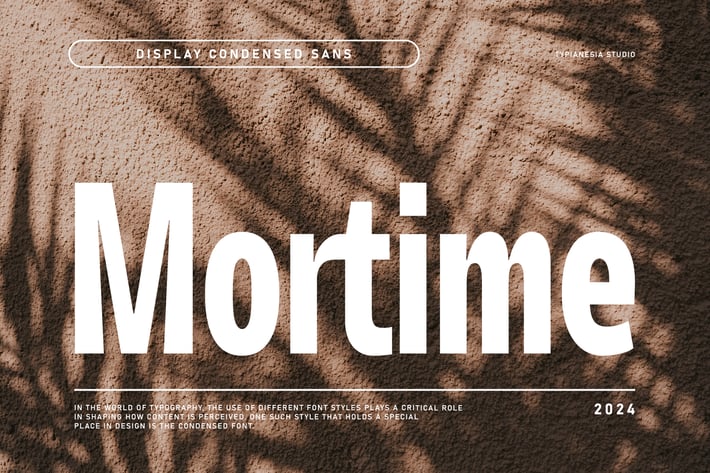
Mortime - Modern Condensed Sans Serif Display Font
Mortime - Modern Condensed Sans Serif Display Font - Minimalist Bold Clean Font
Mortime is a Modern Condensed Sans Serif Display Font that emphasizes minimalism and bold, with its clean lines and narrow, compact design, perfect for magazine covers, posters, branding, and websites, Mortime excels in fashion, editorial, tech, packaging and lifestyle industries. It adds a touch of modern to any design while maintaining readability and visual appeal. Comes with uppercase and lowercase letters, punctuation, numerals, multilingual support, and ligatures, providing designers with a complete toolkit to achieve consistency and harmony in typography. Crafted for creatives who value both style and function, Mortime is tailored to deliver clarity and modernity in design, transforming any project into a professional and polished presentation.